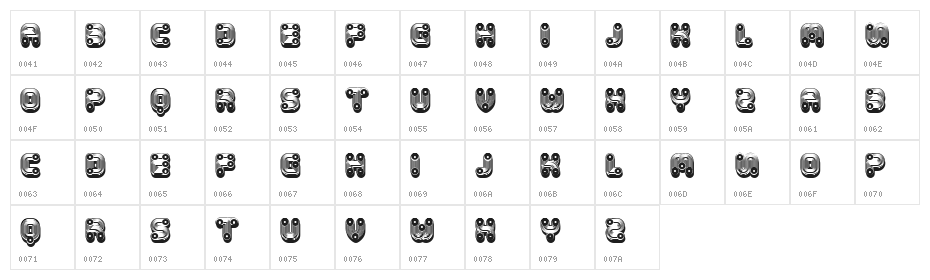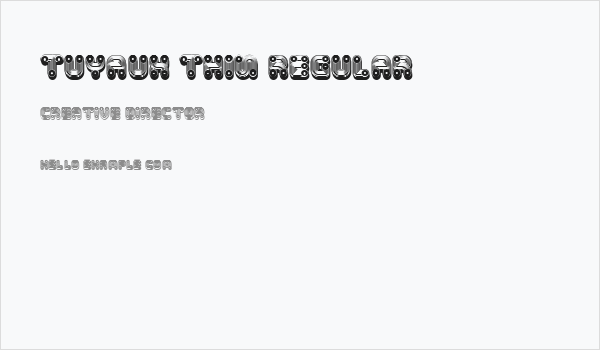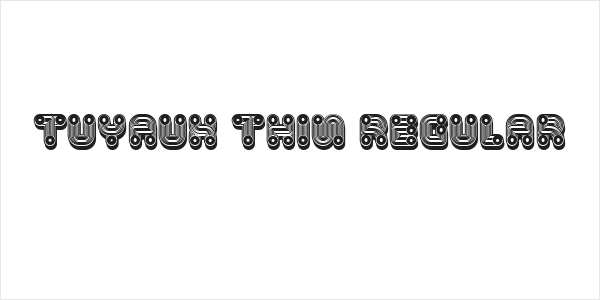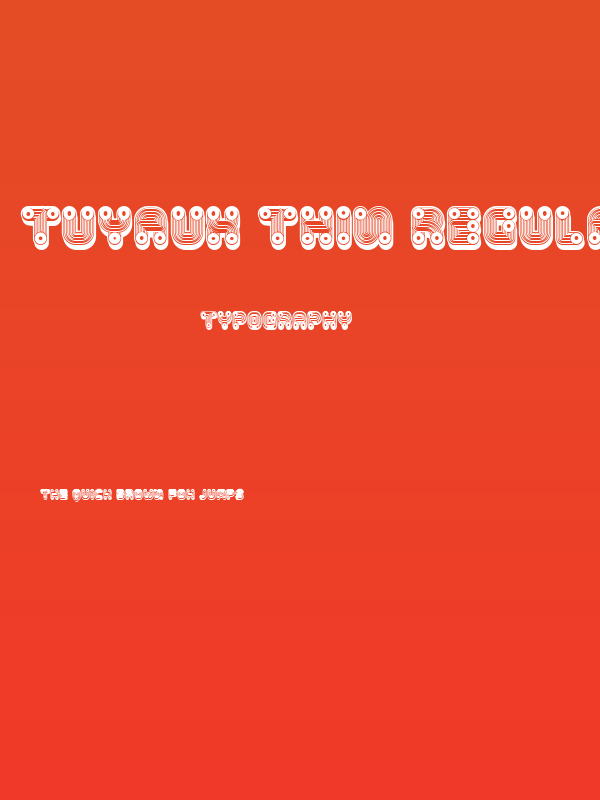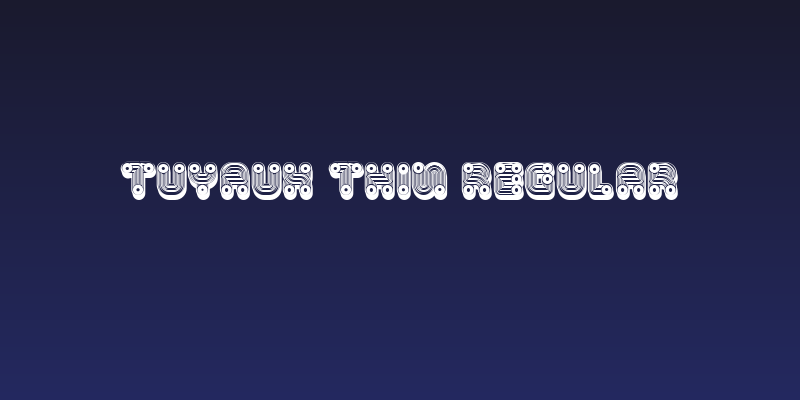
Tuyaux Thin Regular Font
Tuyaux Thin Regular Description
This font features a highly decorative and intricate design, characterized by its bold, multi-layered strokes that create a sense of depth and complexity. Each letter is composed of multiple concentric lines, giving it a tubular appearance reminiscent of pipes or circuits. The font's geometric structure is consistent across all characters, providing a cohesive and unified look. Its boldness and unique style make it stand out, making it suitable for eye-catching designs. The font maintains a consistent width across all characters, ensuring uniformity in text alignment.
| Proposed Projects | Ideal for futuristic designs, tech-themed projects, posters, and branding that requires a standout, modern look. |